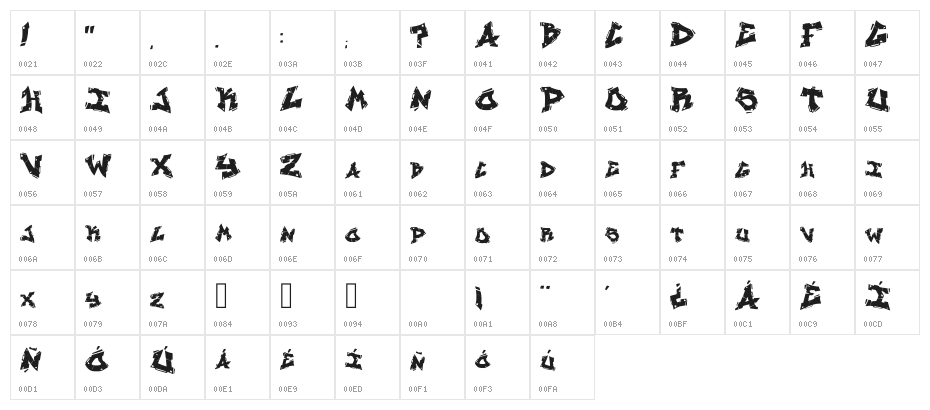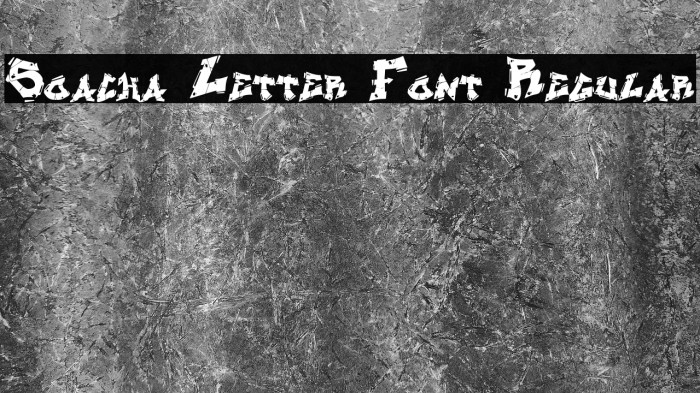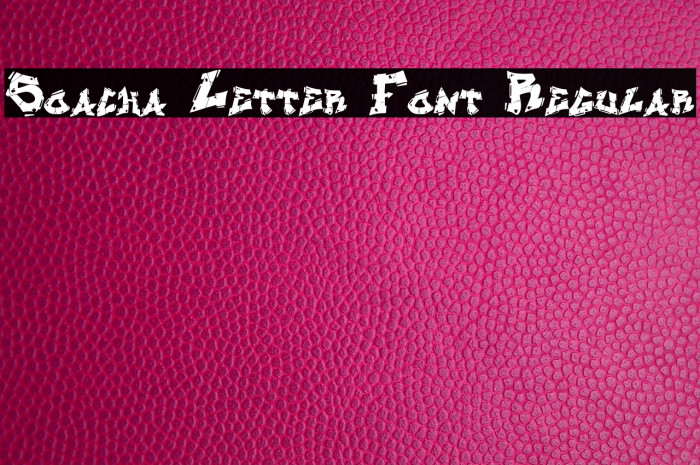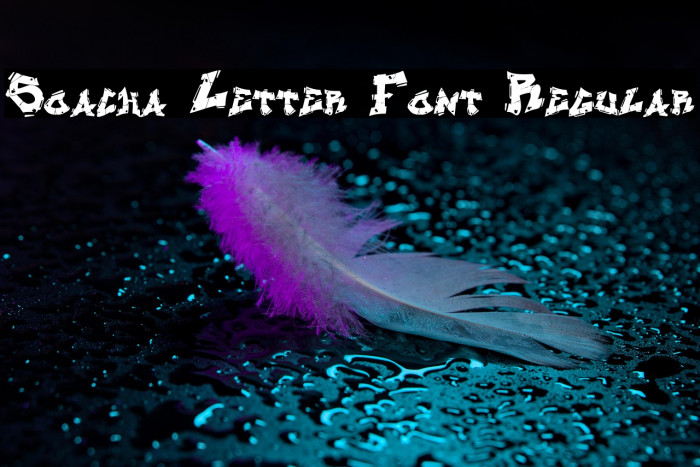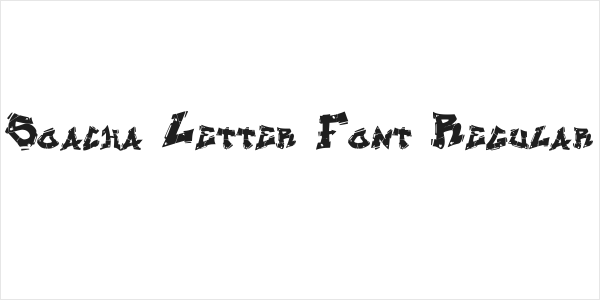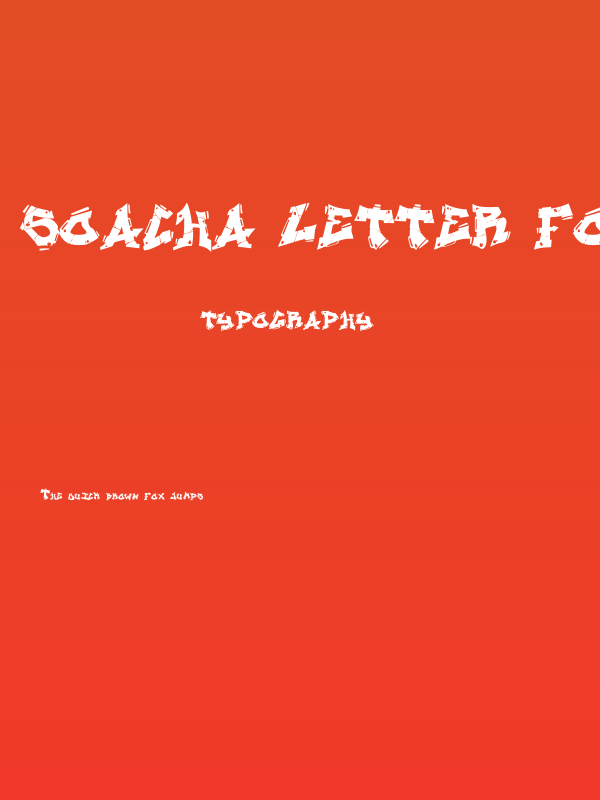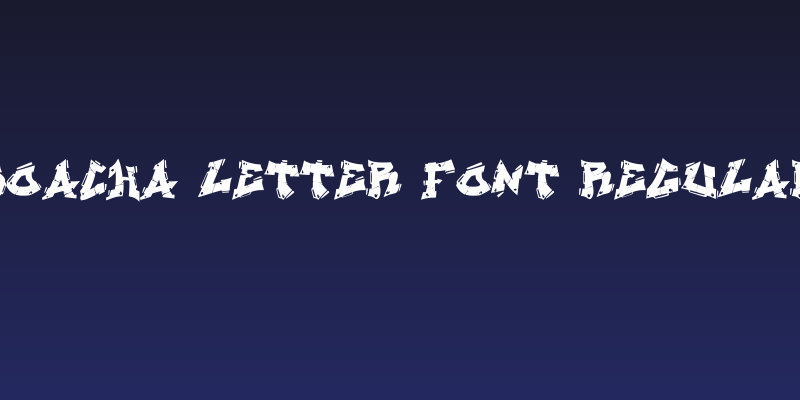
Soacha Letter Font Regular Font
Soacha Letter Font Regular Description
This font features a bold and edgy design with a graffiti-like appearance. The letters are constructed with sharp angles and irregular shapes, giving it a dynamic and rebellious feel. The style is reminiscent of urban street art, making it stand out with its unique and artistic flair. The characters are tightly spaced, enhancing the compact and impactful look. The font's high contrast in stroke thickness adds to its striking presence, making it ideal for attention-grabbing designs.
| Overall Style | Urban, Graffiti, Edgy |
| Proposed Projects | Perfect for street art designs, music album covers, urban-themed posters, and edgy branding projects. |